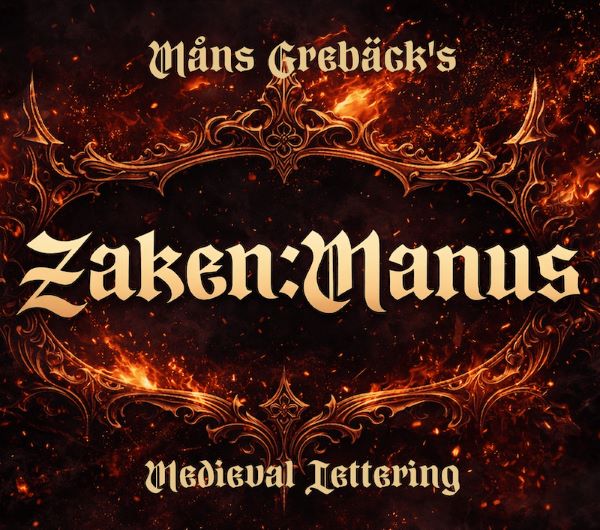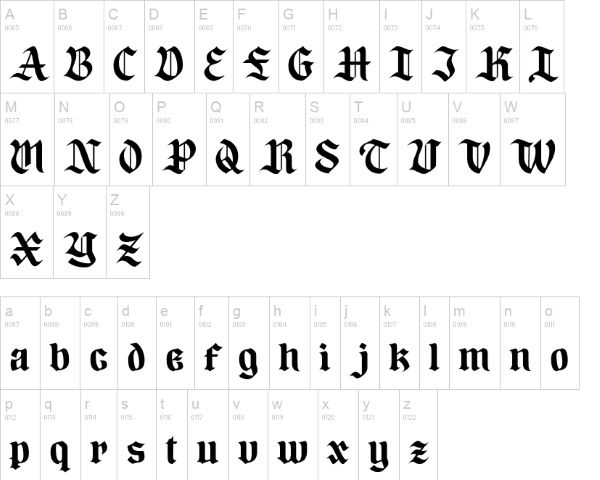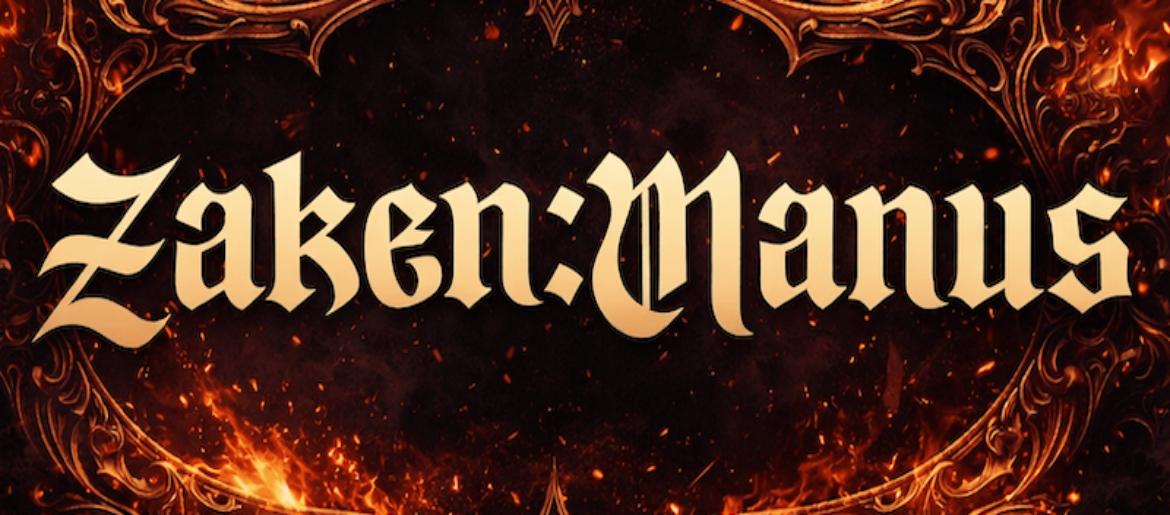
Zaken Manus Font
Zaken Manus Font is a medieval blackletter typeface with a commanding and deliberate presence. Rooted in manuscript tradition, it features sharp angles, heavy strokes, and a disciplined rhythm that conveys authority. The letterforms feel carved and intentional, balancing ornament with clarity. Its ceremonial capitals and controlled lowercase structure make it effective for both striking titles and extended text settings.